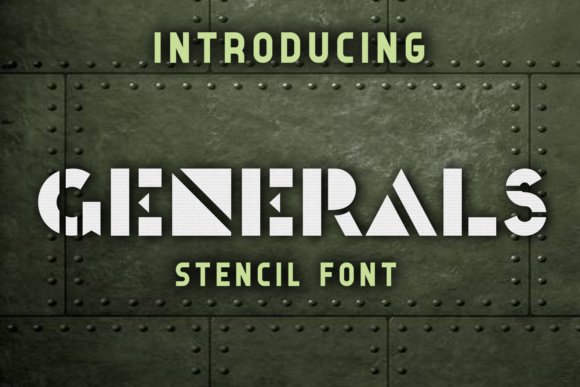
Meet Your New Design Partner: Generals Font
You’ve got a vision, a message to share, and a blank canvas staring back at you. The creative spark is lit, and it’s time to bring your idea to life. Whether you’re a seasoned designer or a hobbyist looking to make your mark, the right font can make all the difference. That’s where Generals Font comes in – a stencil font that’s as bold as it is versatile.
Designed for maximum impact, Generals Font is perfect for posters, prints, t-shirts, and any other medium where you want to make a statement. Its unique aesthetic is both rugged and refined, making it an invaluable addition to any designer’s toolkit. With Generals Font, you can take your designs to the next level and stand out from the crowd.
Key Features of Generals Font
- Unique Characteristic: The Generals Font features a unique, distressed design that evokes a sense of nostalgia and ruggedness, making it ideal for military, outdoor, and vintage-themed applications.
- Font Weight: The font has multiple weights, including Light, Regular, Medium, Bold, and Black, allowing users to choose the perfect weight for their design.
- Language Support: The Generals Font supports a wide range of languages, including Latin, Cyrillic, and Greek, making it suitable for international applications.
Generals Font Review
As a designer, I’ve had the chance to work with a wide range of fonts, and the Generals Font is one that caught my attention. Here’s my honest review.
- The Generals Font has a unique, vintage feel to it. It’s perfect for designs that need a touch of nostalgia.
- The font is highly customizable, with a range of weights and styles available. This makes it easy to adapt to different design contexts.
- The font’s versatility is also a major plus. It works well for both digital and print designs.
- The Generals Font can feel a bit too ornate for some designs. It may be overwhelming if used extensively.
- The font’s readability can be a concern in certain contexts. The unique style can make it difficult to read at smaller font sizes.
Overall, the Generals Font is a solid choice for designers looking for a unique, vintage feel. While it has its limitations, it’s a versatile font that can work well in a variety of contexts. With careful use, it can add a touch of sophistication to any design.
Generals Font: A Practical Application Guide
Generals Font is ideal for creating bold, military-inspired designs. Tips for getting the most out of it include:
– Pairing it with bold, contrasting colors to create a striking visual effect.
– Using it in combination with other military-inspired fonts for a cohesive look.
– Experimenting with different font sizes and styles to create a unique visual identity.